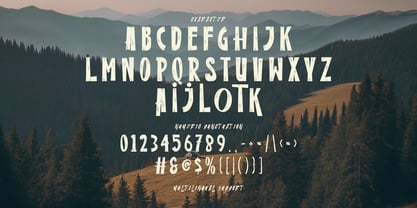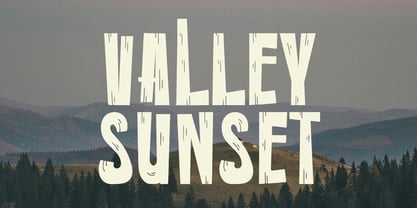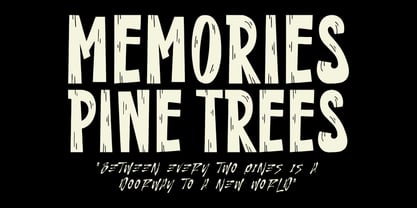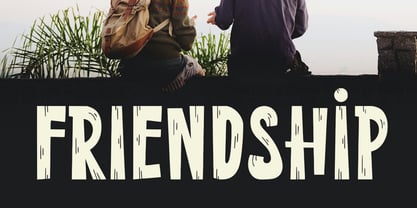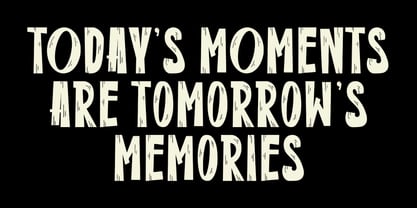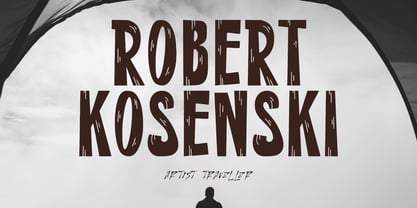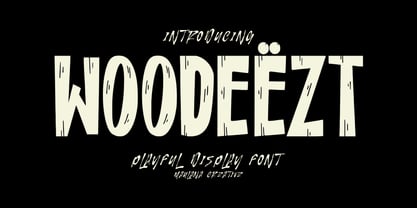
MC Woodeezt
by Maulana Creative
The MC Woodeezt Font Family was designed by Gilang Maulana and published by Maulana Creative. MC Woodeezt contains 1 styles. More about this family
Woodeezt is a bold and playful display font inspired by natural textures and wooden vibes. With its handcrafted look and quirky details, this font is perfect for creative projects that need a fun and adventurous touch. Whether you’re designing branding, website, quotes, or social media graphics, Woodeezt brings a rustic yet modern charm that makes your text stand out. Its unique character shapes and textured cuts give the feeling of nature, exploration, and creativity, making it ideal for outdoor-themed designs, children’s projects, adventure branding, and lifestyle content. Woodeezt also supports multilingual characters, ensuring versatility for global use.
Designers: Gilang Maulana
Foundry: Maulana Creative